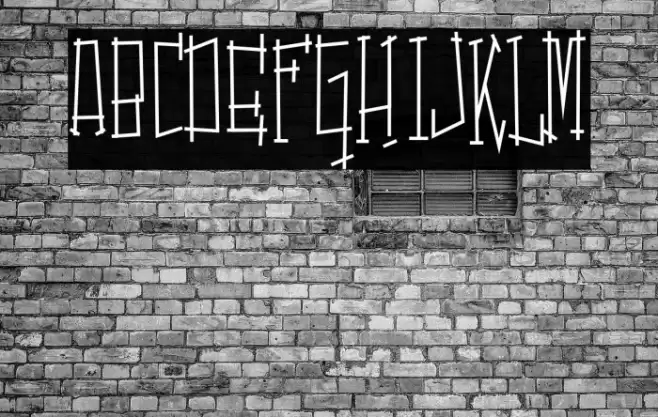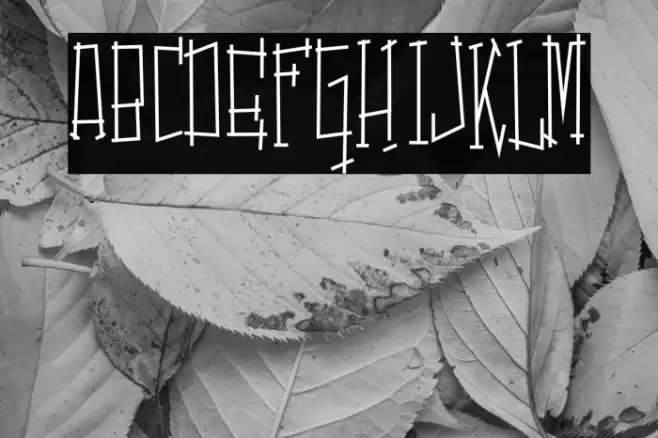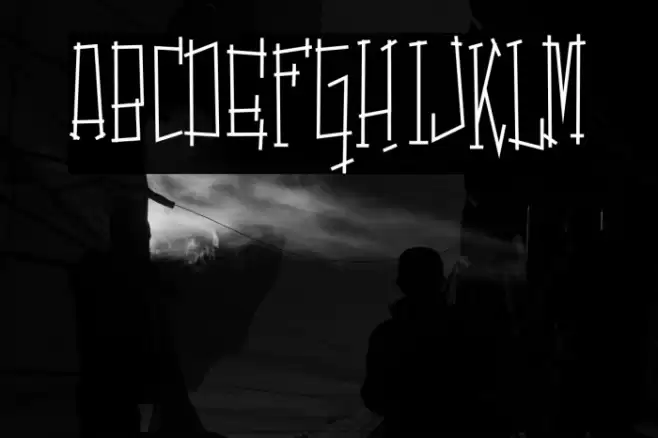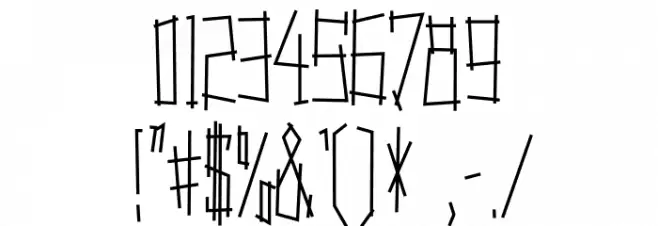
This font features a highly distinctive and unconventional design, characterized by its angular and geometric letterforms. Each character is constructed with a series of straight lines and sharp angles, giving it a mechanical and almost robotic appearance. The font maintains a consistent stroke width throughout, which contributes to its uniformity and cohesion. Despite its rigid structure, the font manages to convey a sense of movement and dynamism, as if each letter is in the process of transforming or assembling. The overall aesthetic is modern and edgy, making it suitable for projects that require a bold and futuristic look. The characters are evenly spaced, ensuring readability while still maintaining its unique style.
A modern, angular font with geometric letterforms and a futuristic aesthetic from Uncategorized fonts.
- Proposed Projects: Ideal for sci-fi themed designs, tech-related branding, video game interfaces, and edgy poster art.
- Overall Style: Futuristic, Edgy